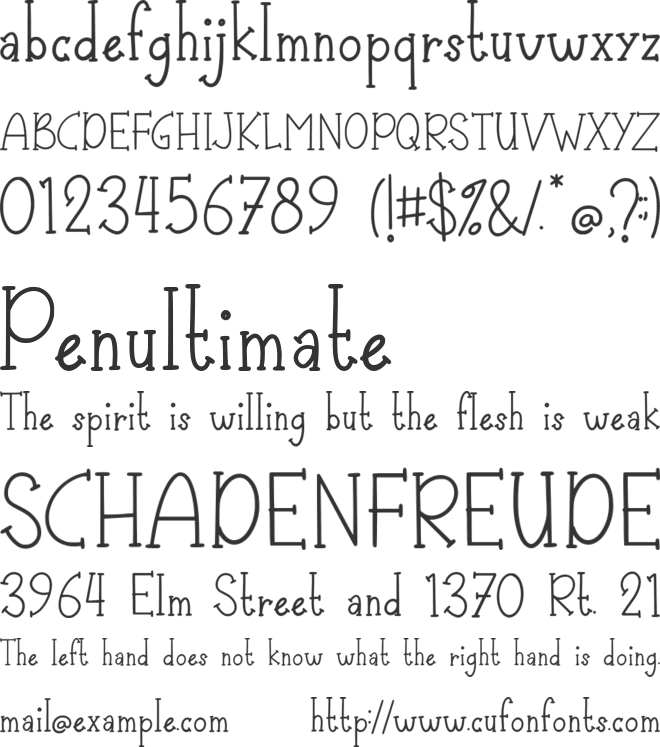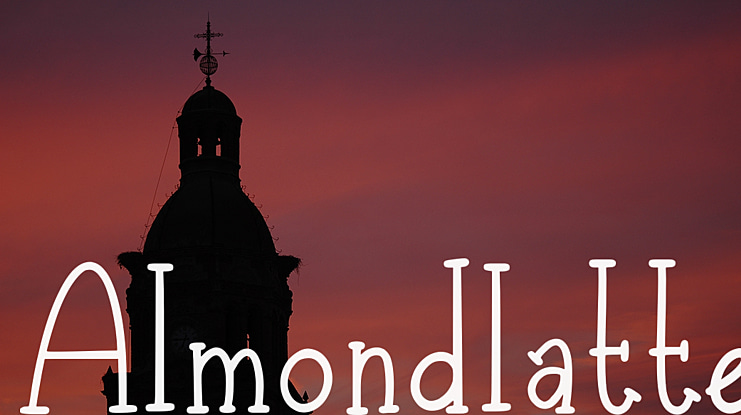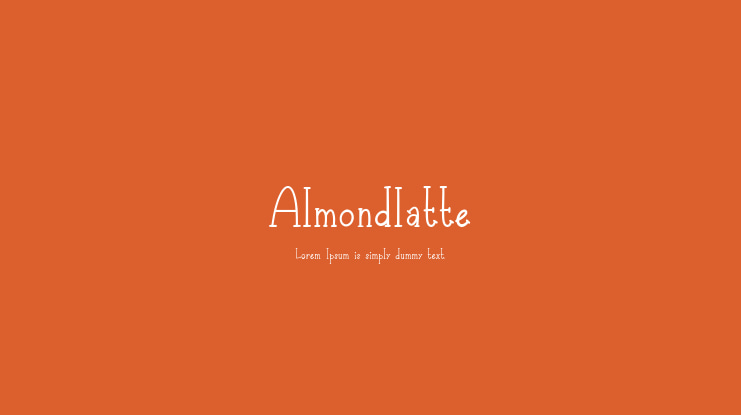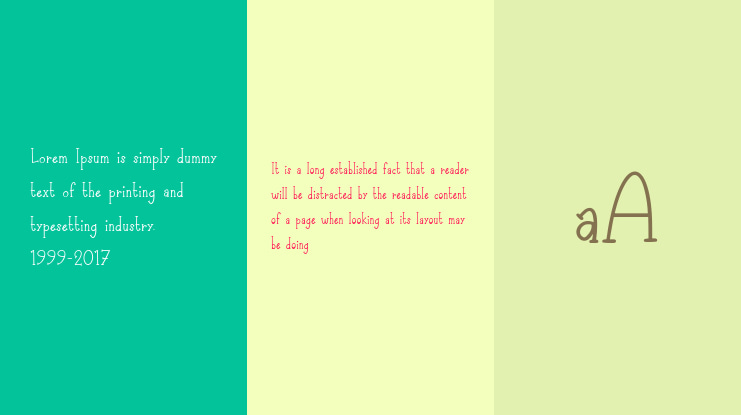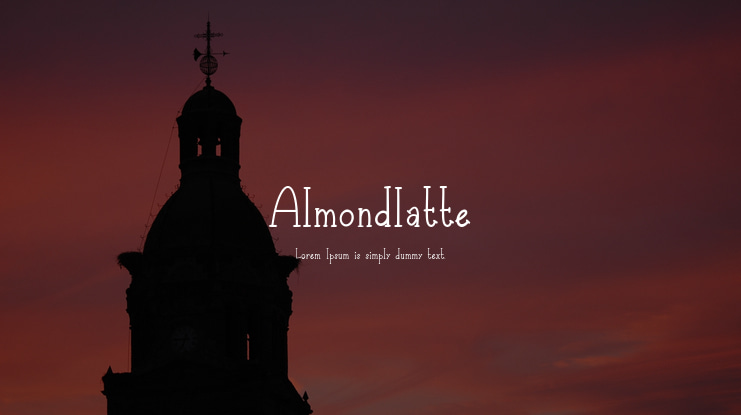
It’s a Cute Display Font, Almondlatte is perfect for product packaging, branding project, megazine, social media, wedding, or just used to express words above the background.